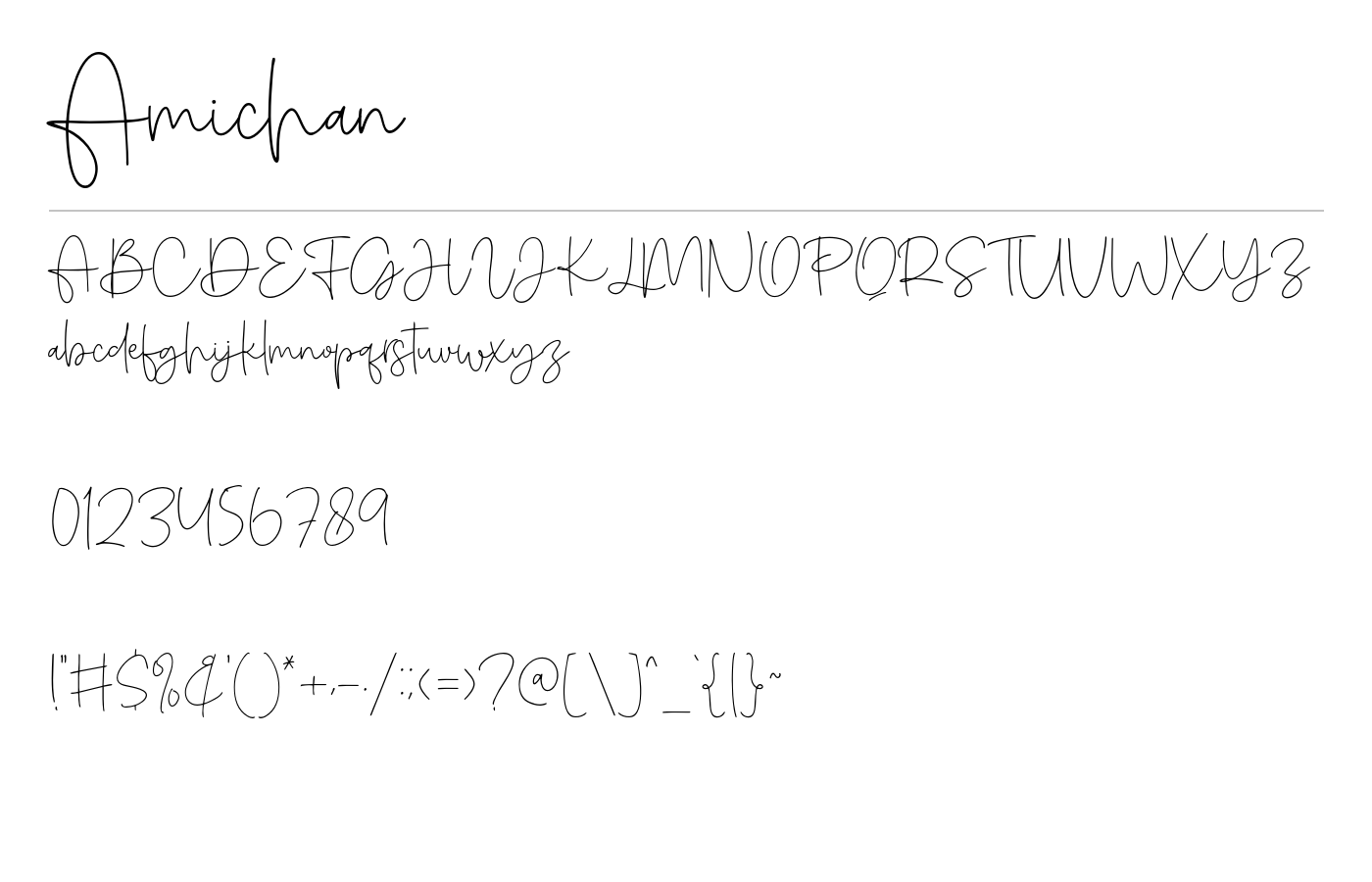
Amichan is a slender, playful handwritten script font characterized by its delicate, loosely connected strokes and tall, airy letterforms. With a light weight and informal style, it conveys a friendly, personal touch ideal for creative projects, casual branding, and invitations that seek a warm, approachable feel. Its unique, slightly irregular shapes make it perfect for adding charm and personality to designs needing a human, hand-crafted look.
Amichan Font
About Amichan Font
| Font family | Amichan Font |
| Designer | Randi Ilhamsyah |